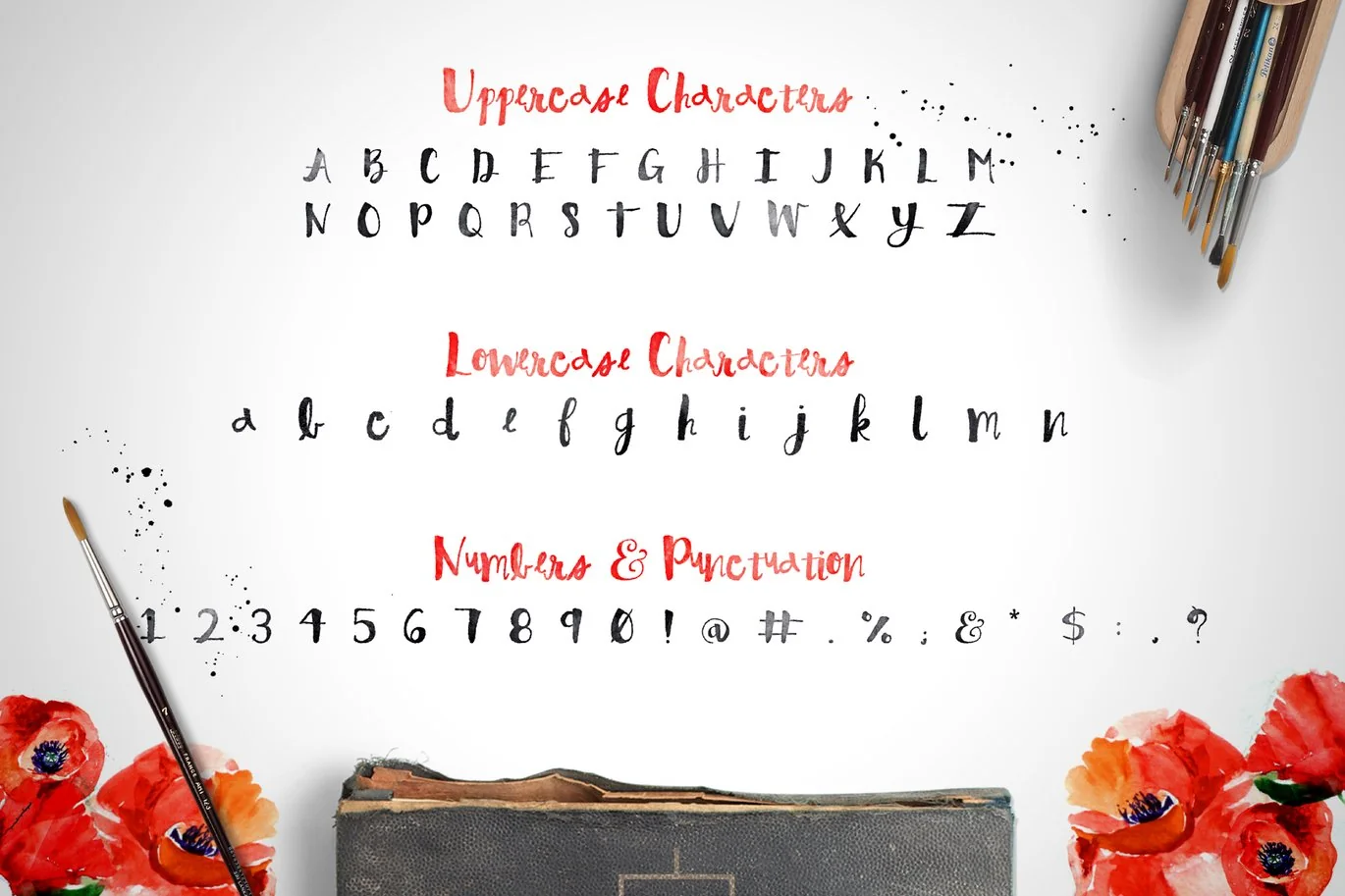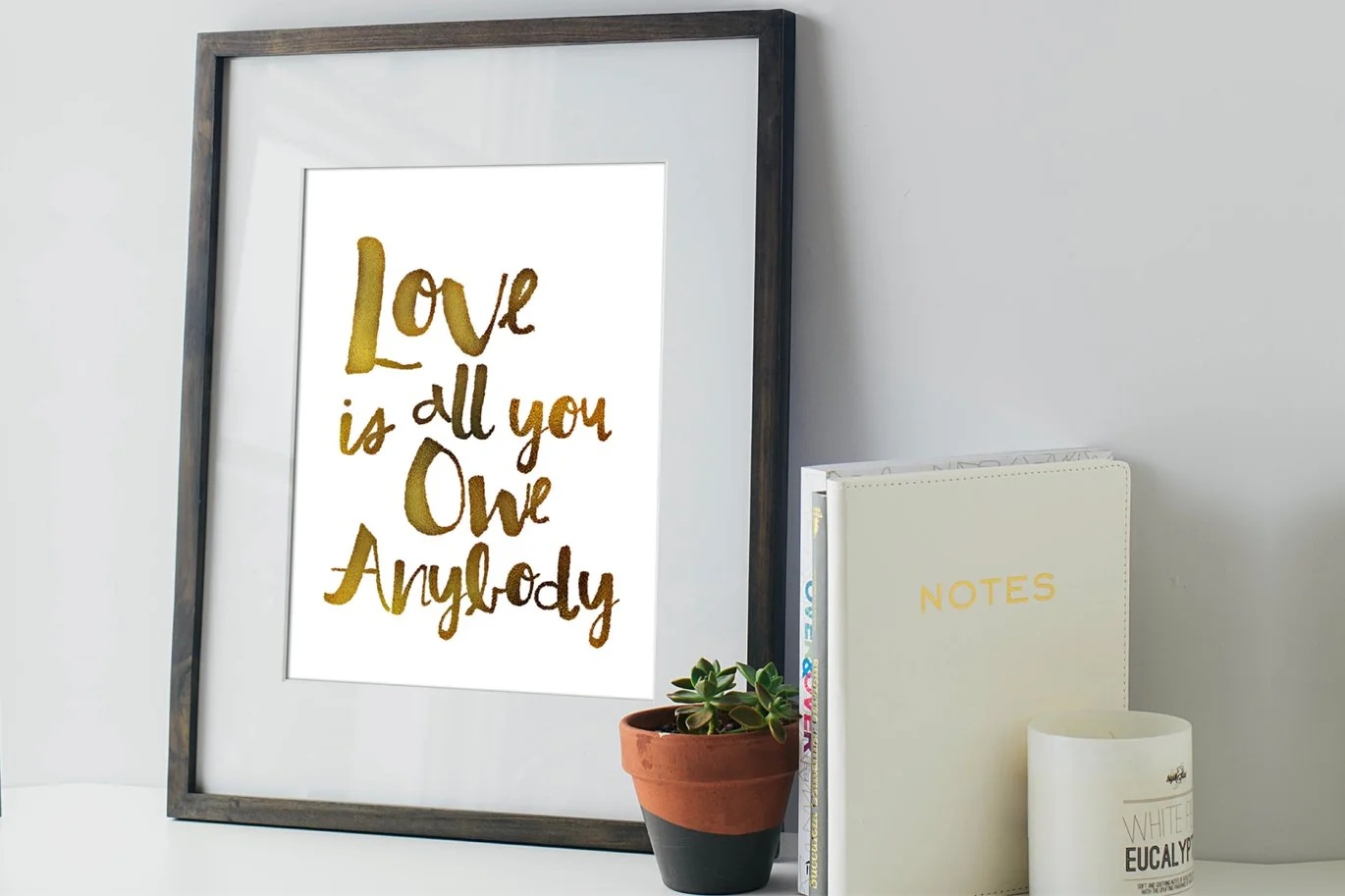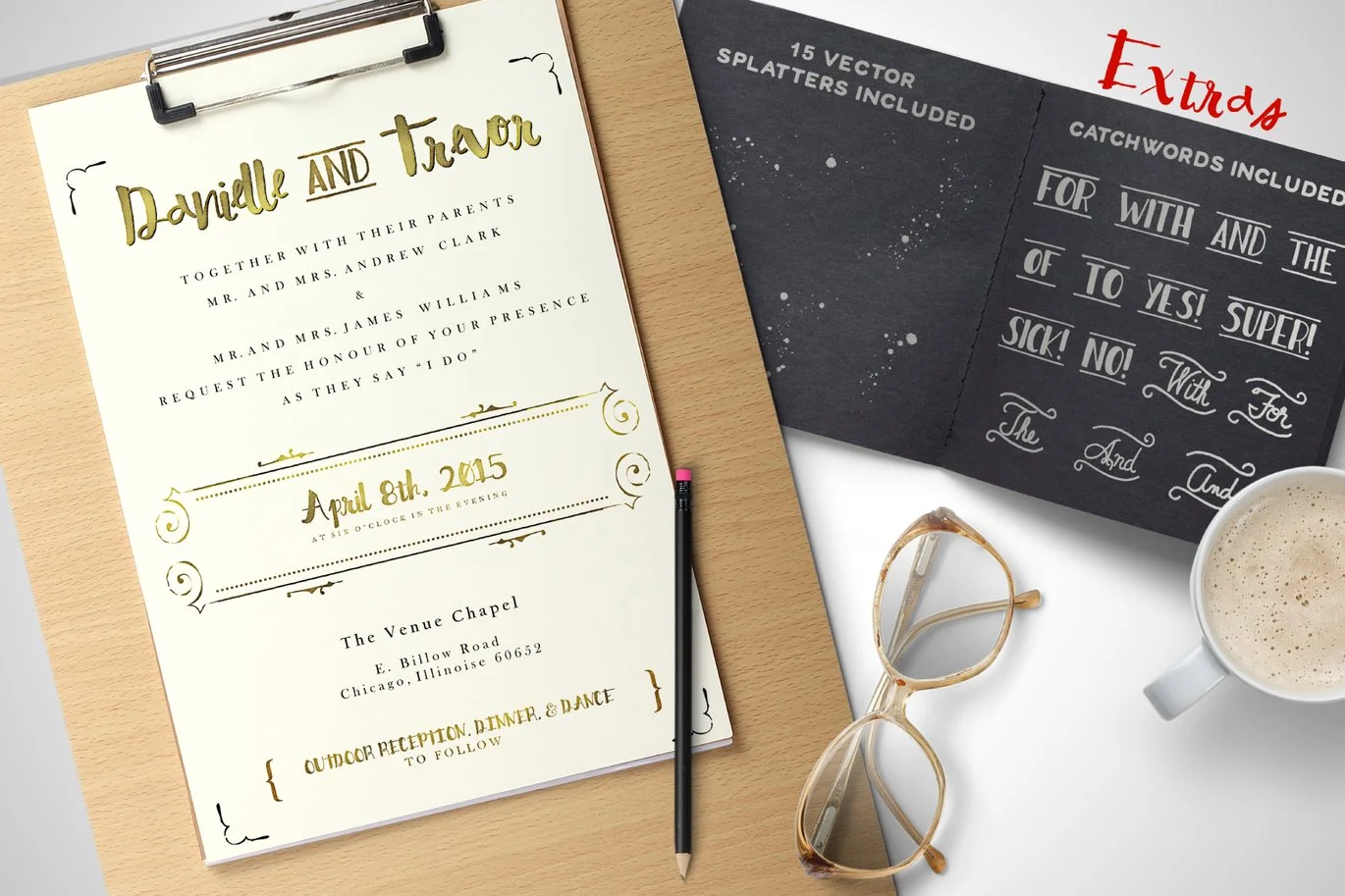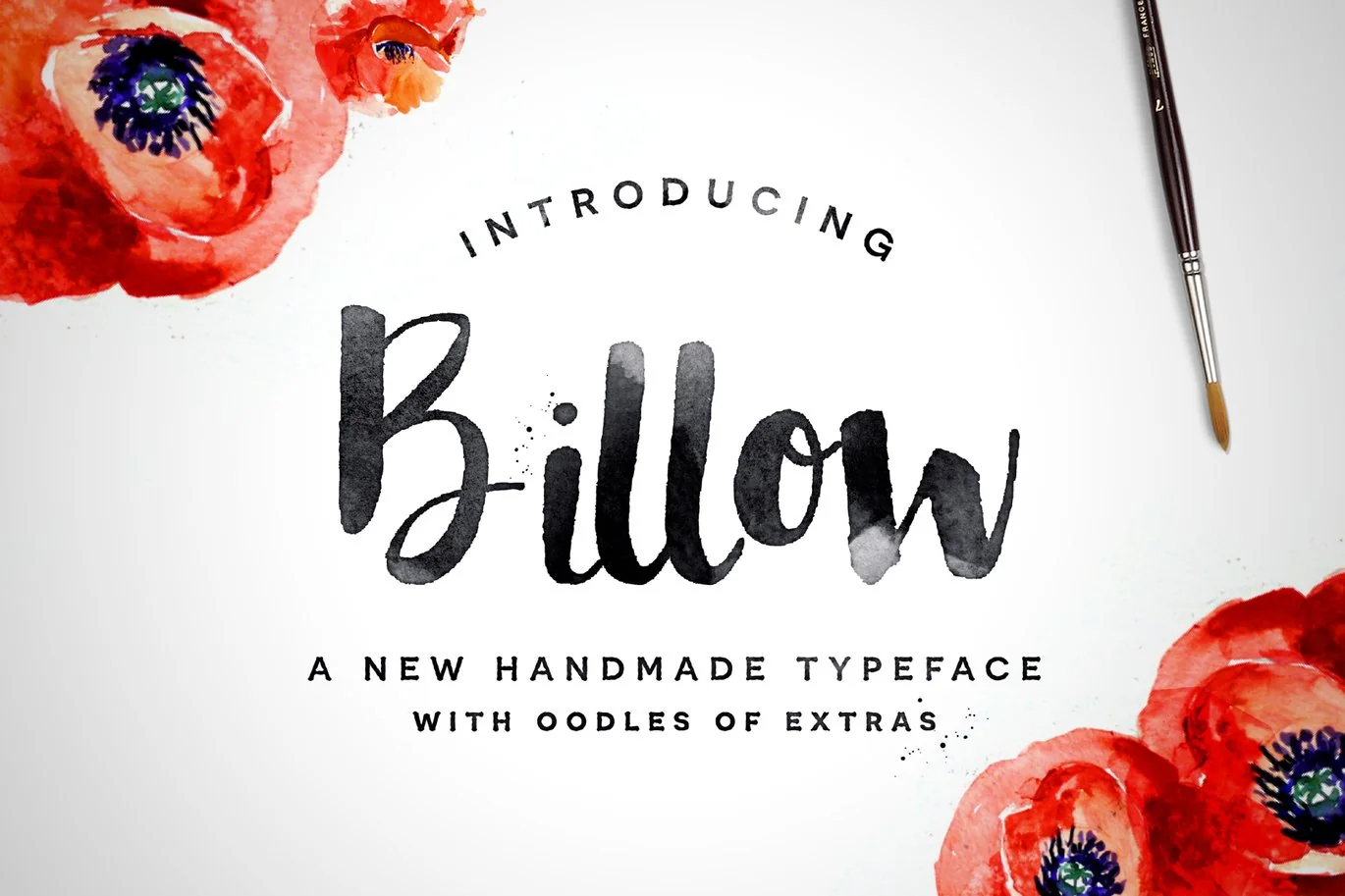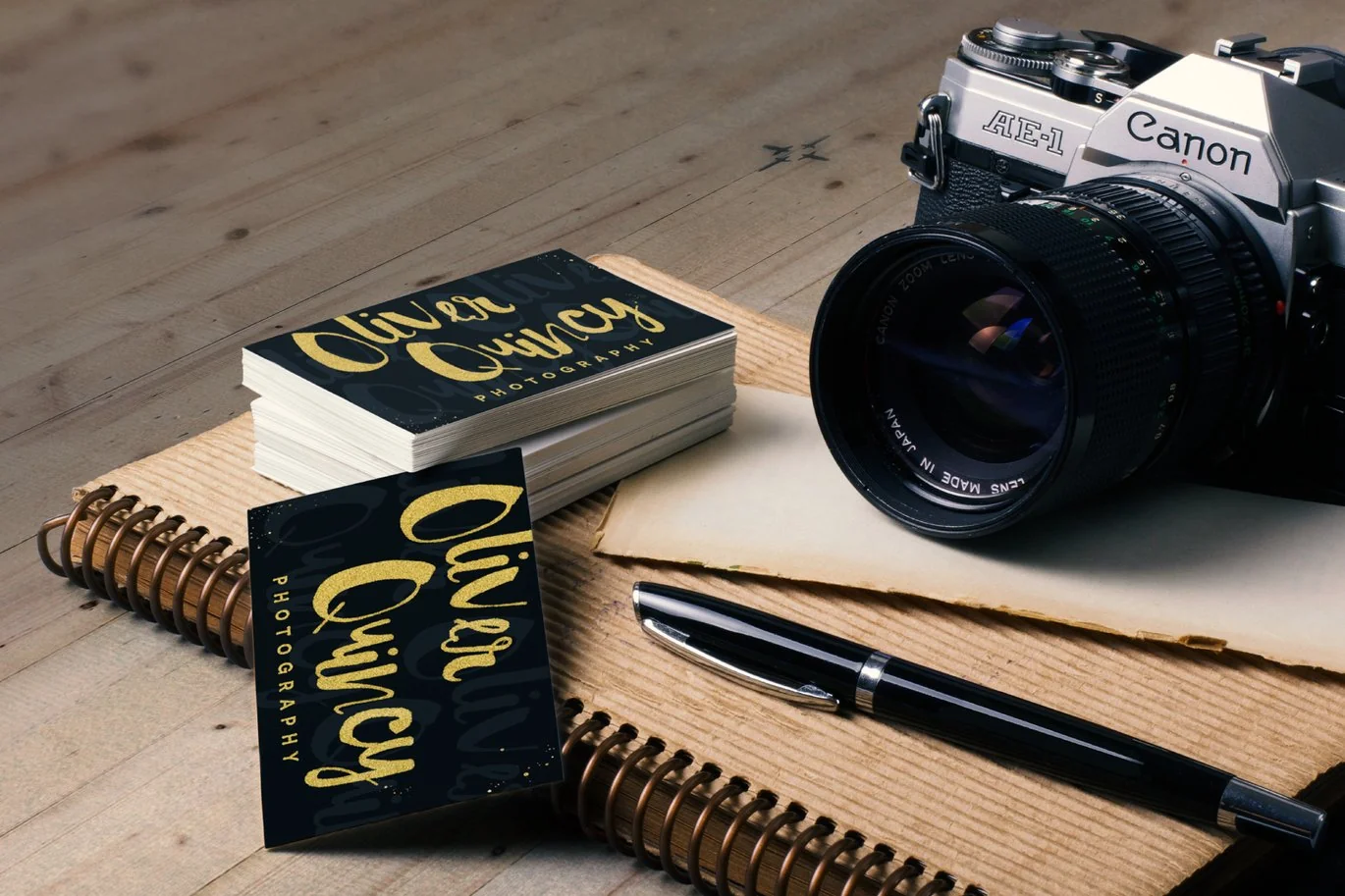
Billow Font
Billow is a bold and beautiful hand lettered font with oodles of extras! It’s imperfect baseline and thin-to-fat characters give it a fun and stylish aesthetic perfect for typography, branding, logo design, invitations, prints, and wedding elements. It’s unrefined. It’s spontaneous. It’s imperfectly perfect!
Use it in ink, watercolor, or gold foil based designs or on its own as a bold hand-painted masterpiece!
Wanting to make sure you had everything you needed to make your project complete with that handcrafted feel, I’ve included:
• 15 Catchwords (See Wedding Invite image)
• 9 Extra Character Glyphs (4 capitals & 5 lowercase)
Add these to your prints, invites, typography, etc. and give it that organic hand-lettered feel.